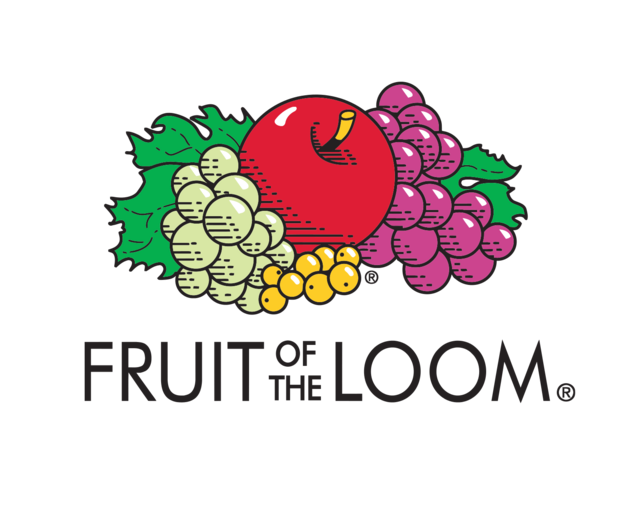
Fruit of the Loom Font
ApparelFruit of the Loom is a clothing company that was founded in 1851 in Rhode Island. The company is known for producing a variety of clothing items including underwear, t-shirts, sweatshirts, and socks.
The Fruit of the Loom logo features a geometric sans-serif called Futura Book created by German type designer Paul Renner. Futura typeface is based on geometric shapes that were recognized as graphic components of the Bauhaus design movement (1919–1933).